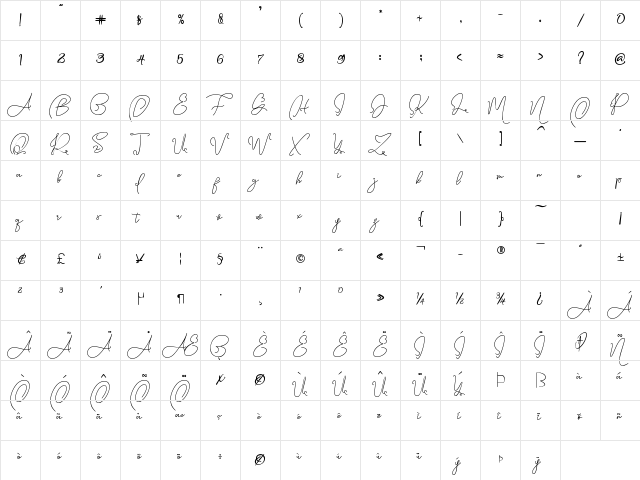
Queens Signature Regular
Design Context for Queens Signature Typeface
Queens Signature is a composed and adaptable typeface that performs quietly and consistently across a wide range of design contexts.